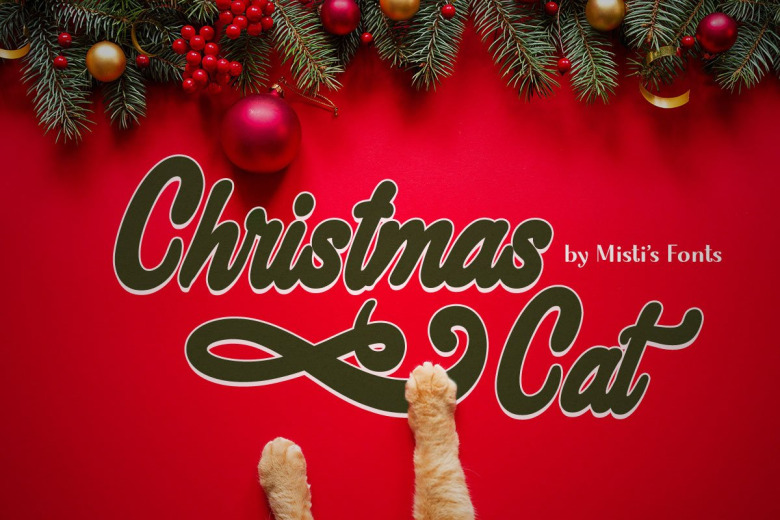
Christmas Cat Font
The Christmas Cat is cute and festive script font. This font is perfect for your festive crafts, such as Christmas cards, New Year’s invites, but also works great for making quotes, and sayings. It includes a wide range of swashes.
Christmas Cat Script Font